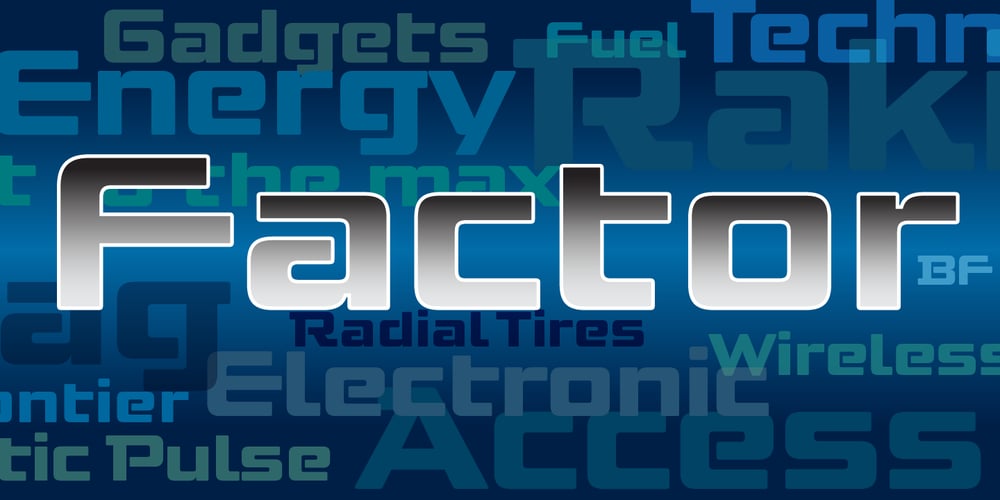
Factor BF Font Family was designed by John Bomparte and published by Bomparte’s Fonts. Factor BF contains 2 styles and family package options. Factor BF takes inspiration from automotive lettering, and has elements of techno. It’s clean, strong and friendly, due to its overall soft, square, sturdy letterform construction. OpenType features include stylistic alternates for letters Q, a, e, f, y and ß; as well as automatic fractions, that are accessible in OpenType capable applications. Consider Factor BF for use in branding, signage, and logos to name just a few of its many areas of application.